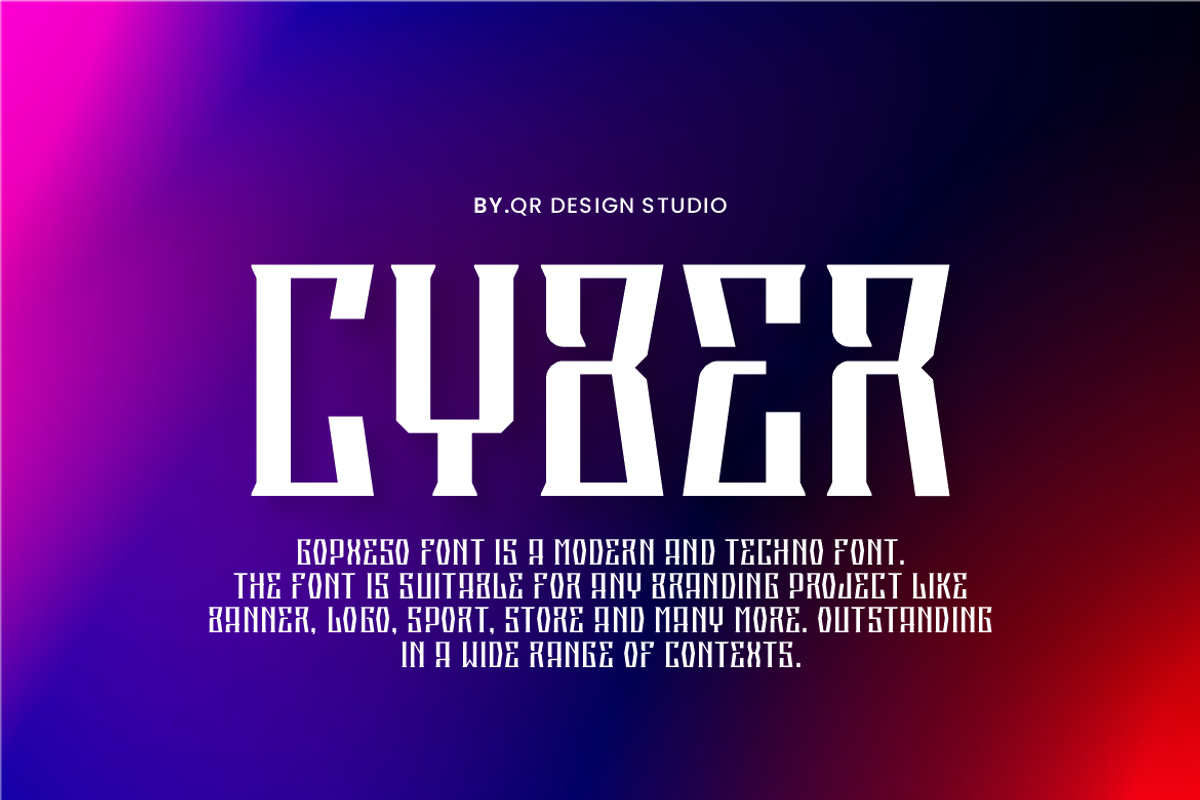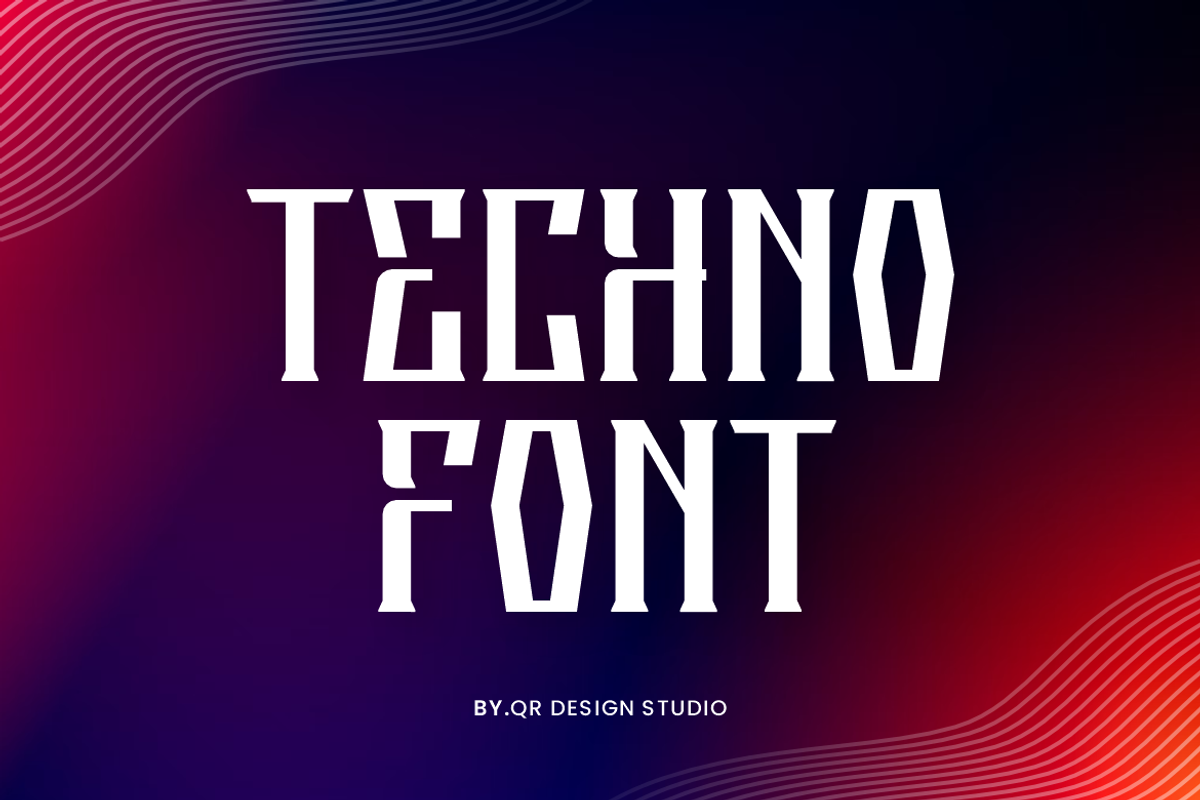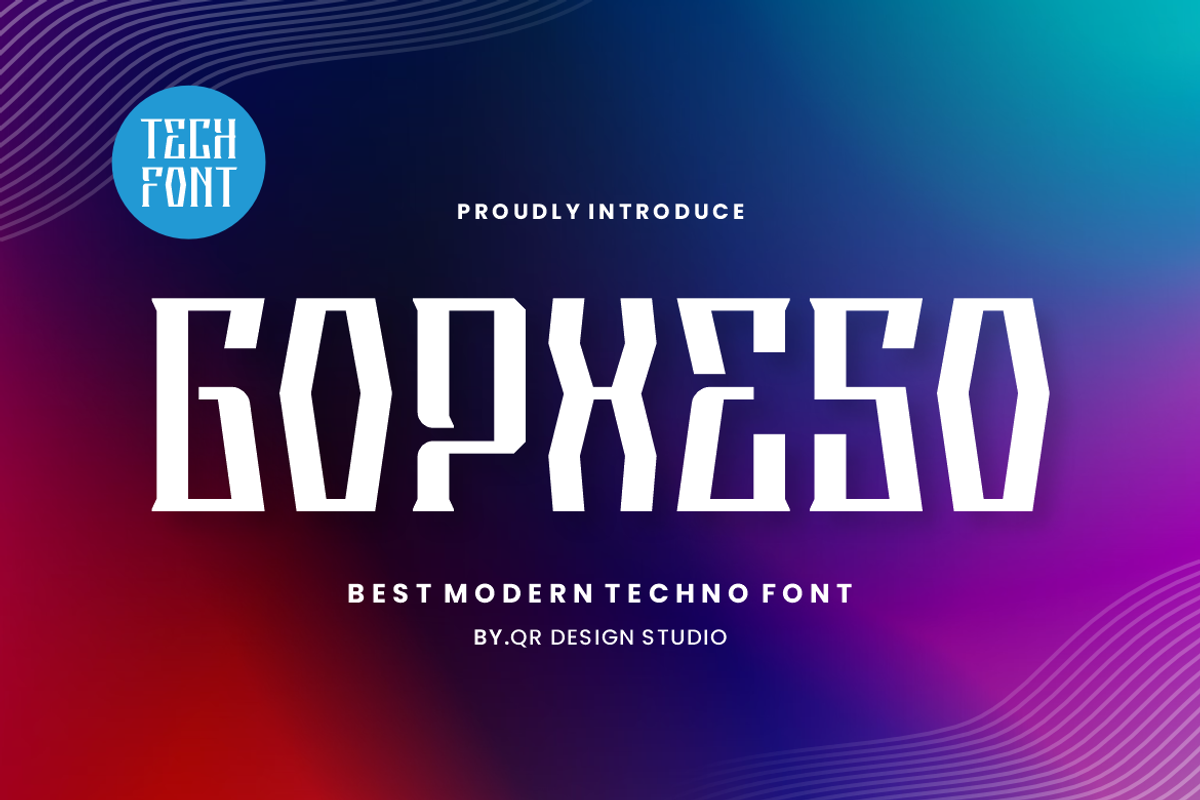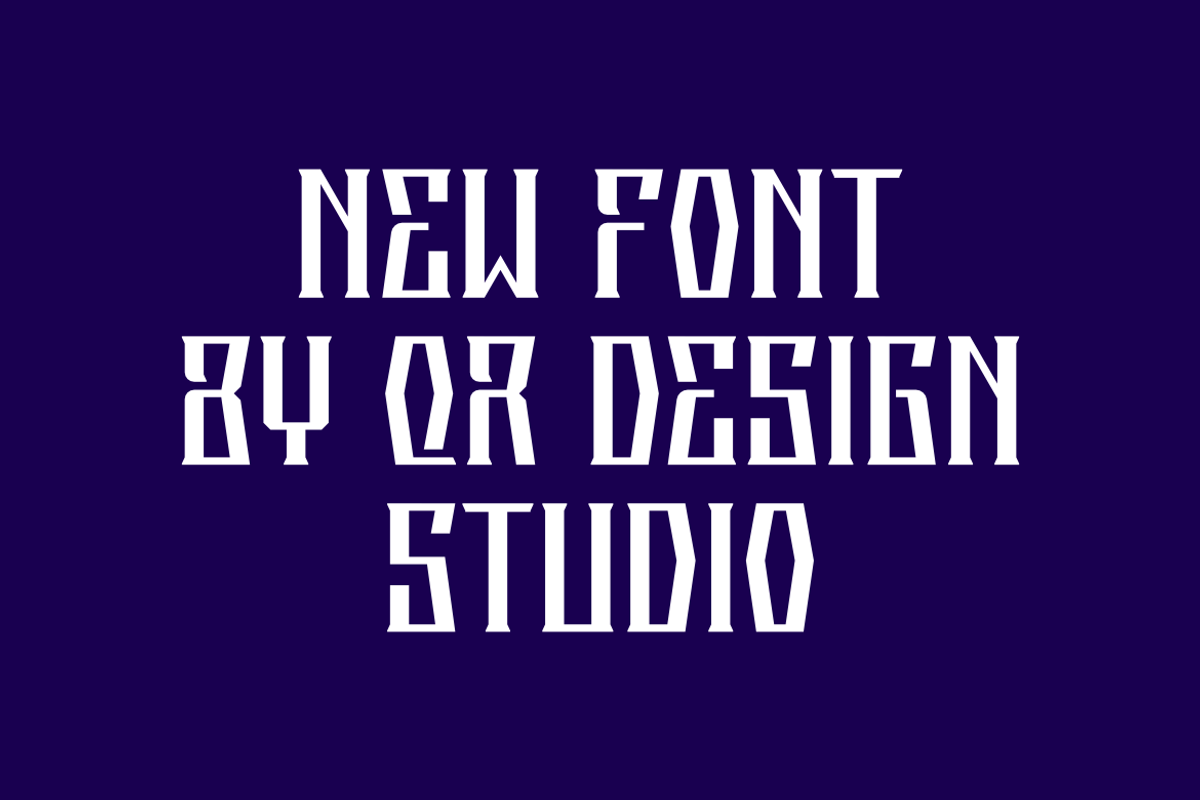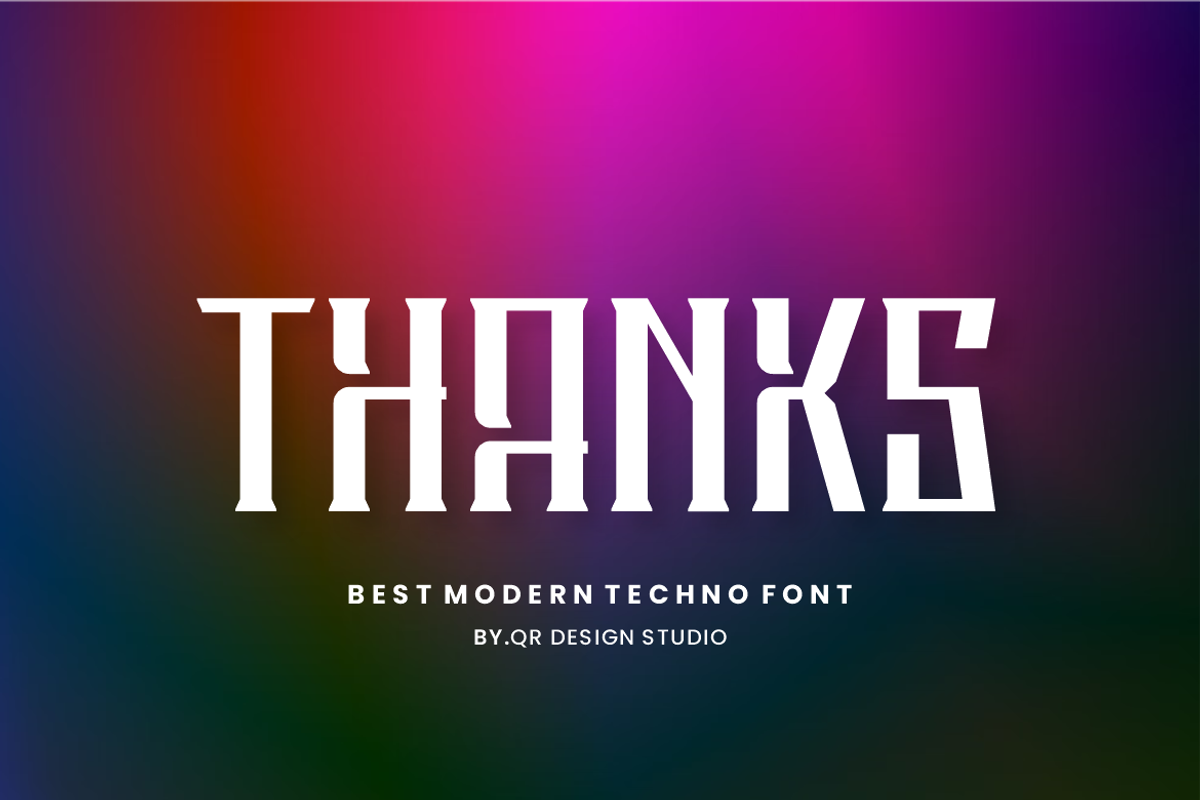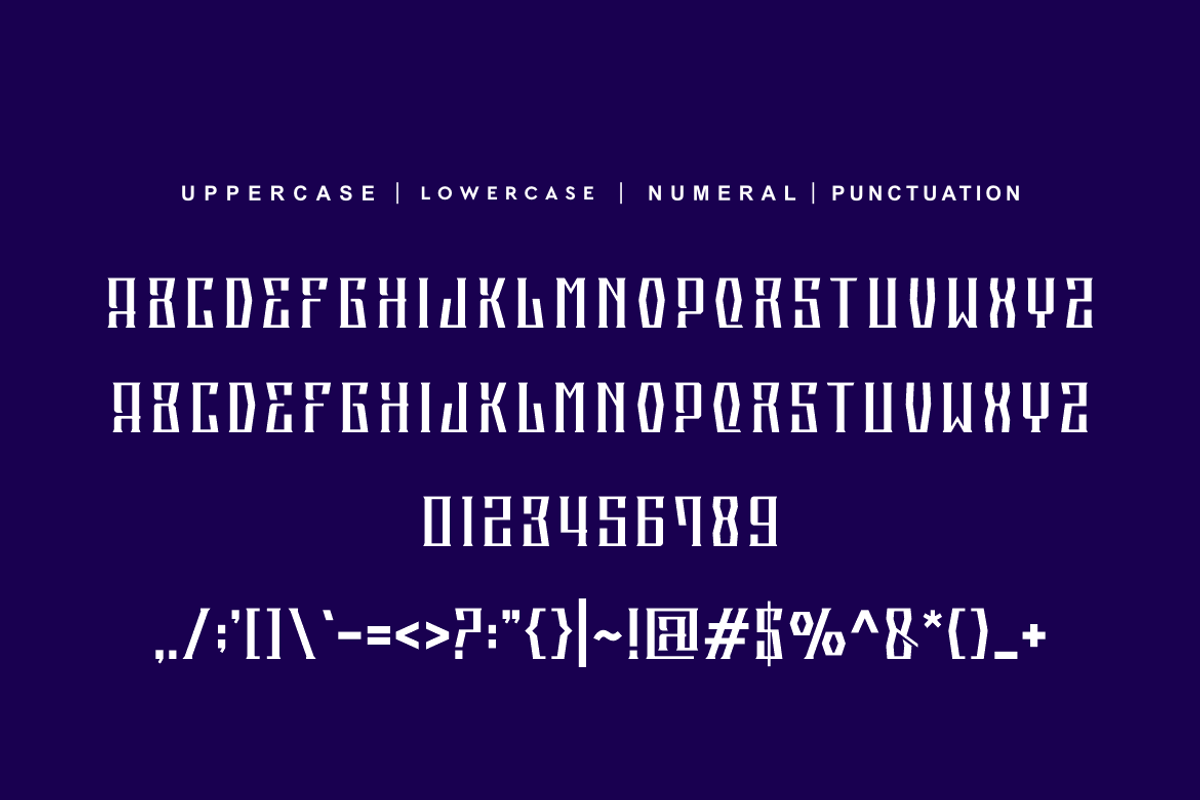
Gopxeso - Digital & Tech Font
Gopxeso Font is a tall and authentic display font. The font is suitable for any branding project like poster, logo, sport, and many more. Outstanding in a wide range of contexts.